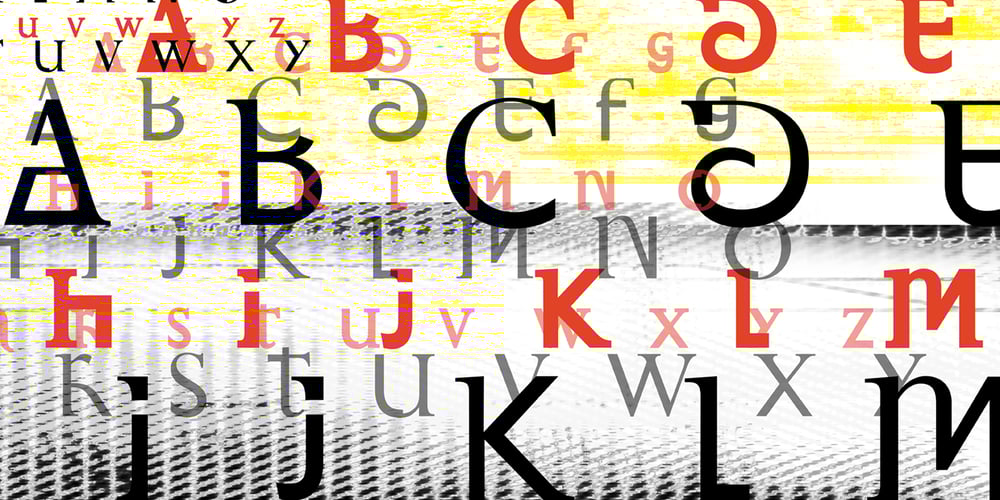
Prototype Font Family was designed by Jonathan Barnbrook and published by Barnbrook Fonts. Prototype contains 2 styles and family package options. Prototype is a typeface with a very contemporary identity crisis—is it old or new? uppercase or lowercase? serif or sans-serif? Prototype tries to be all things to all people. There have been many attempts at creating a universal typeface, one that rationalises the alphabet and removes the inconsistencies of upper and lower case, applying an unreasonable logic to something that has grown organically …and is already perfectly usable! Prototype was the same experiment carried out at a time when design was experiencing an identity crisis of its own—letterforms that try to be all things to all people but end up being something else entirely.